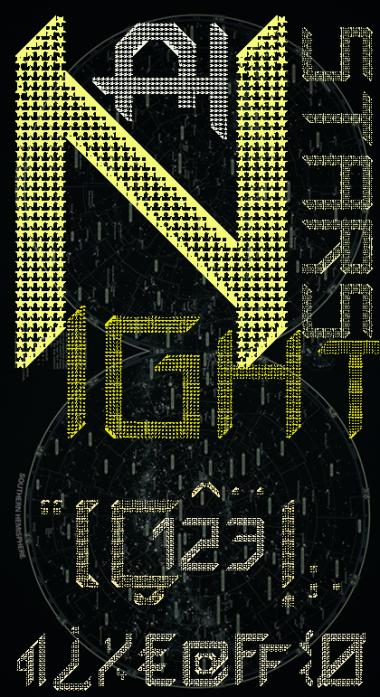
Wish/Star
by Aeolien
Wish upon a star, a font for star gazers and each one of us every-day-FontStruct-stars ... as usual for the WISH group every font can be integrated into the others as it has the same letter and space dimensions. Clone of Wish/Fulfilled.
Thank you Elmoyenique :) The stars look best in very large size, and look like lace in small size